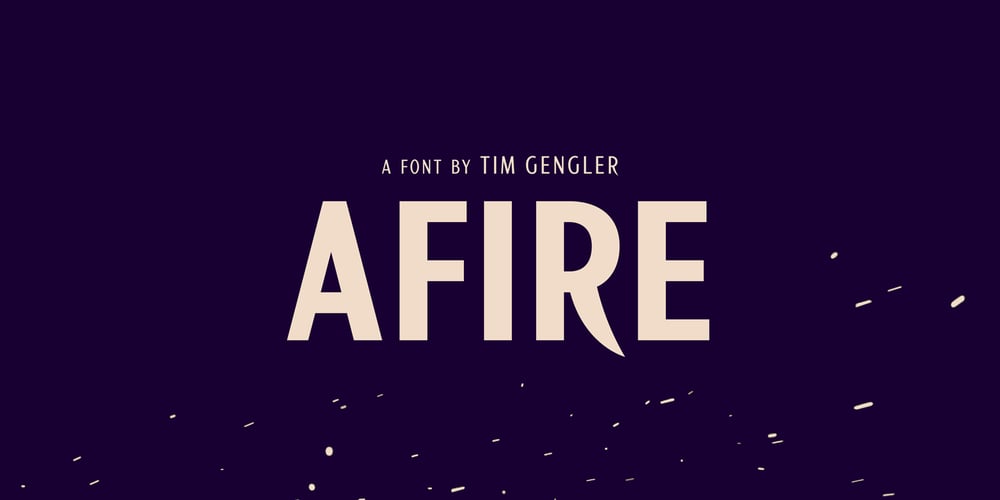
Afire Font Family was designed by Tim Gengler and published by Bunny Dojo. Afire contains 12 styles and family package options. Afire is a sans-serif of understated warmth and elegance. Through clean legibility and gentle embellishment, Afire delivers lively bounce with sophistication.